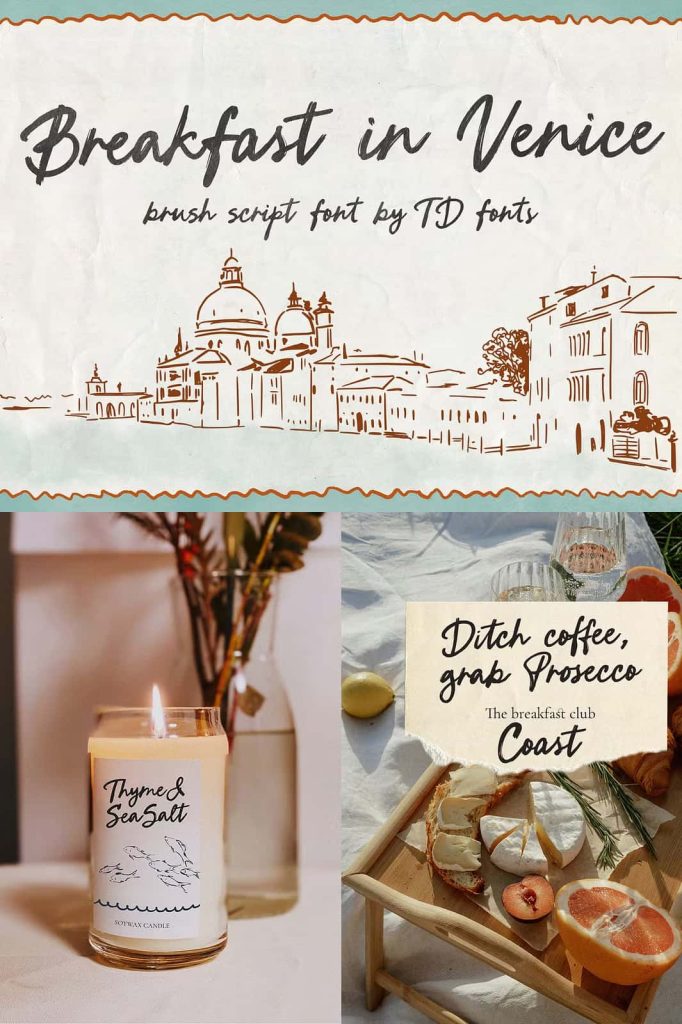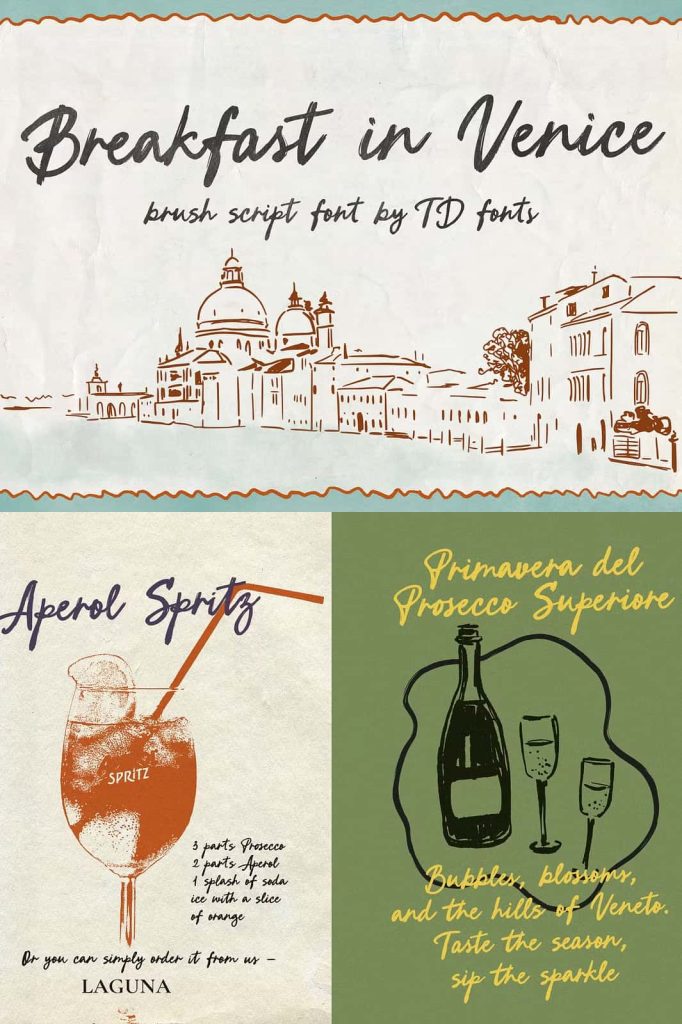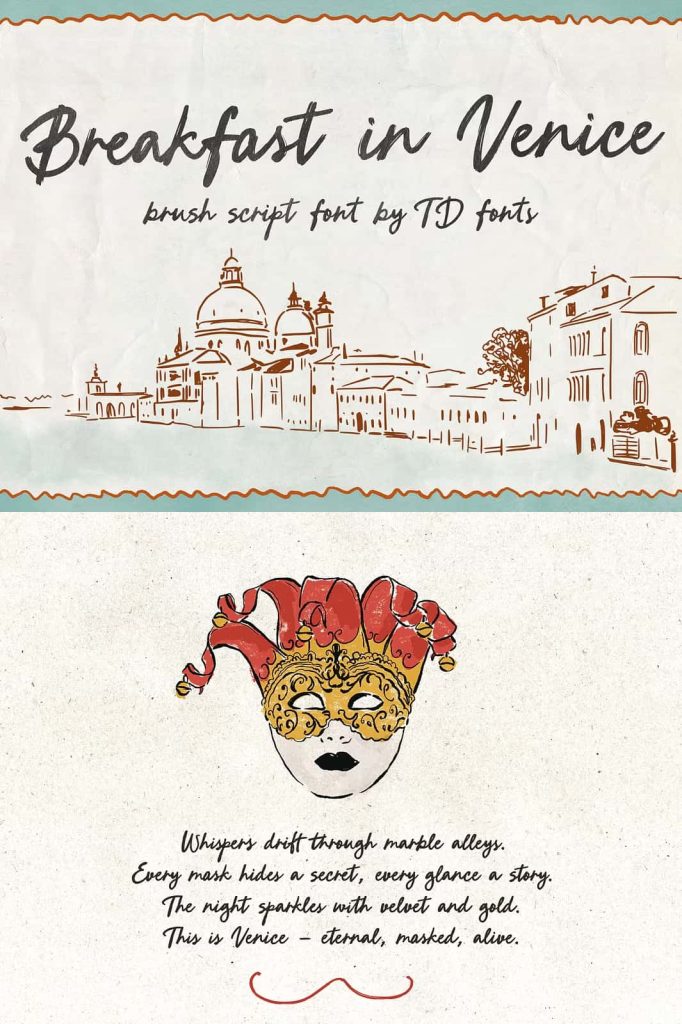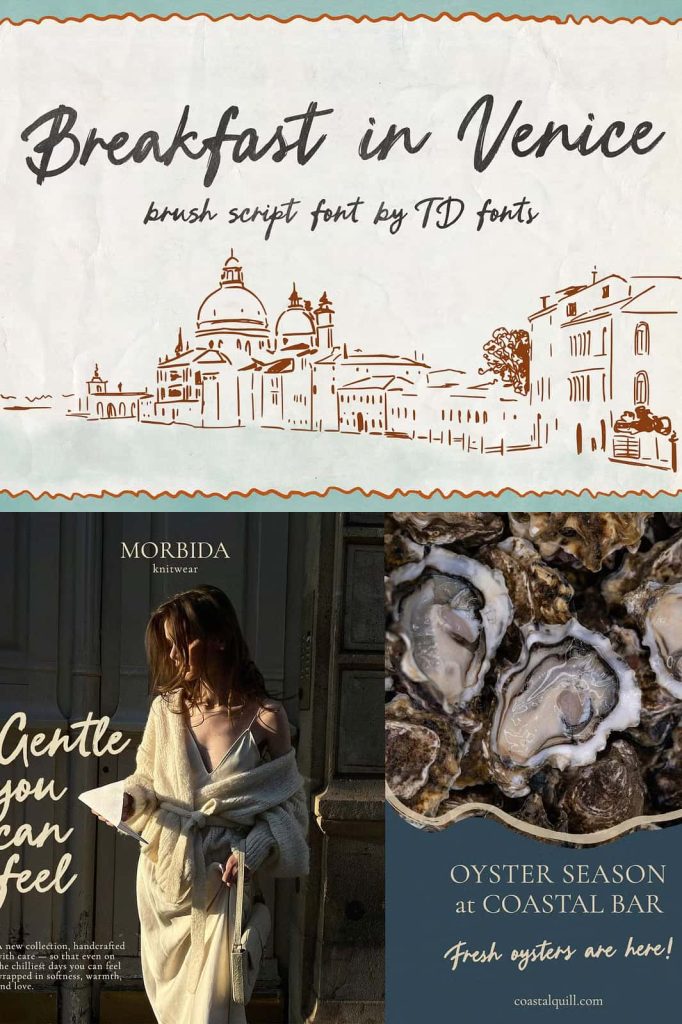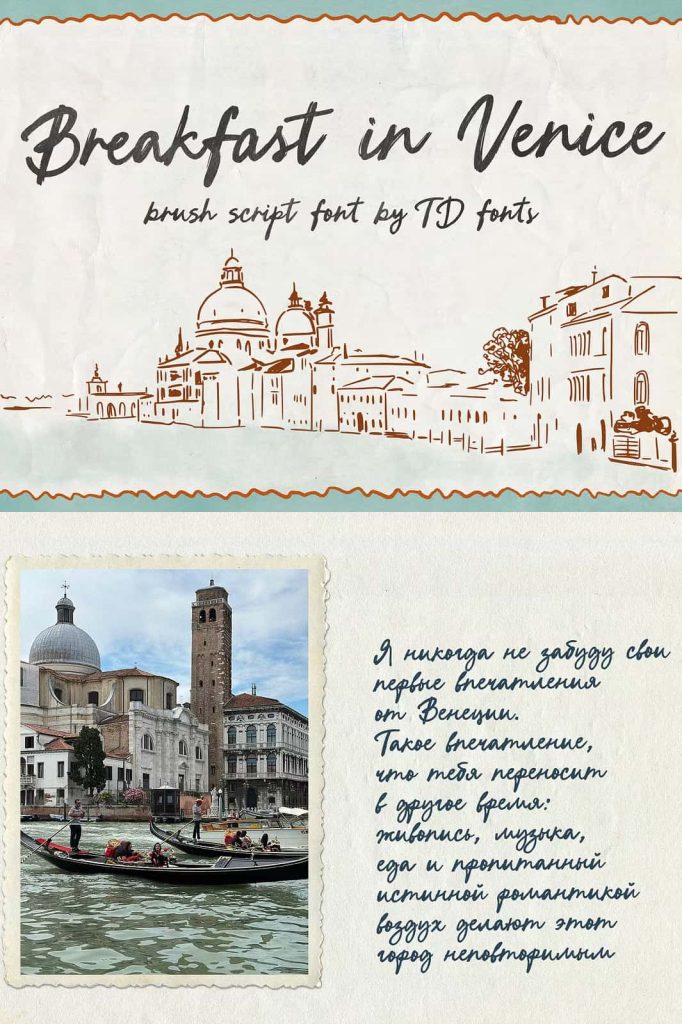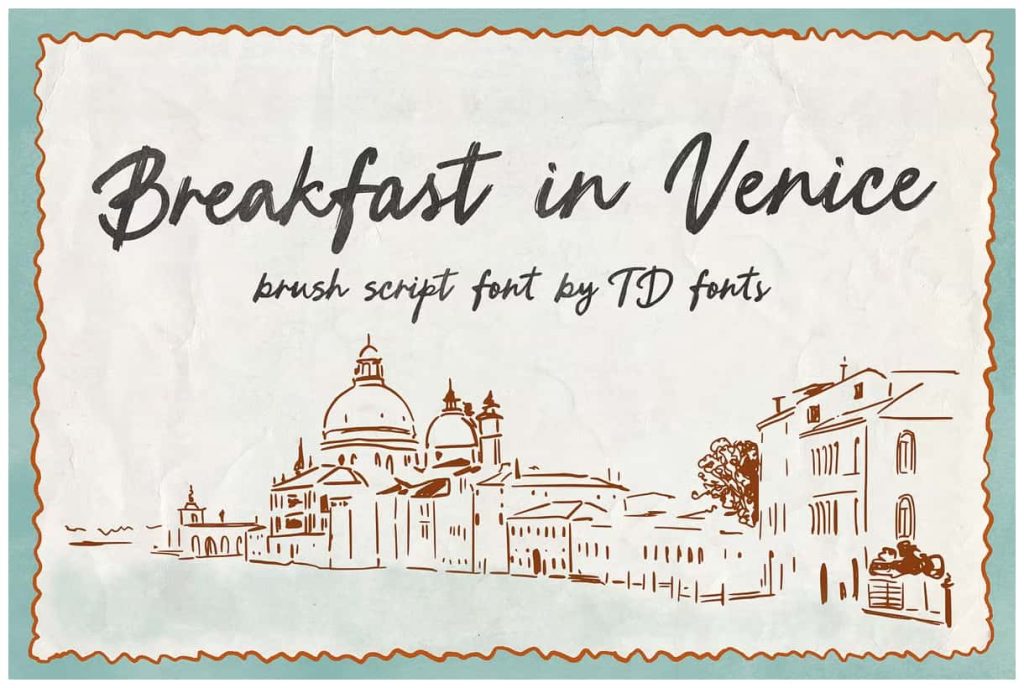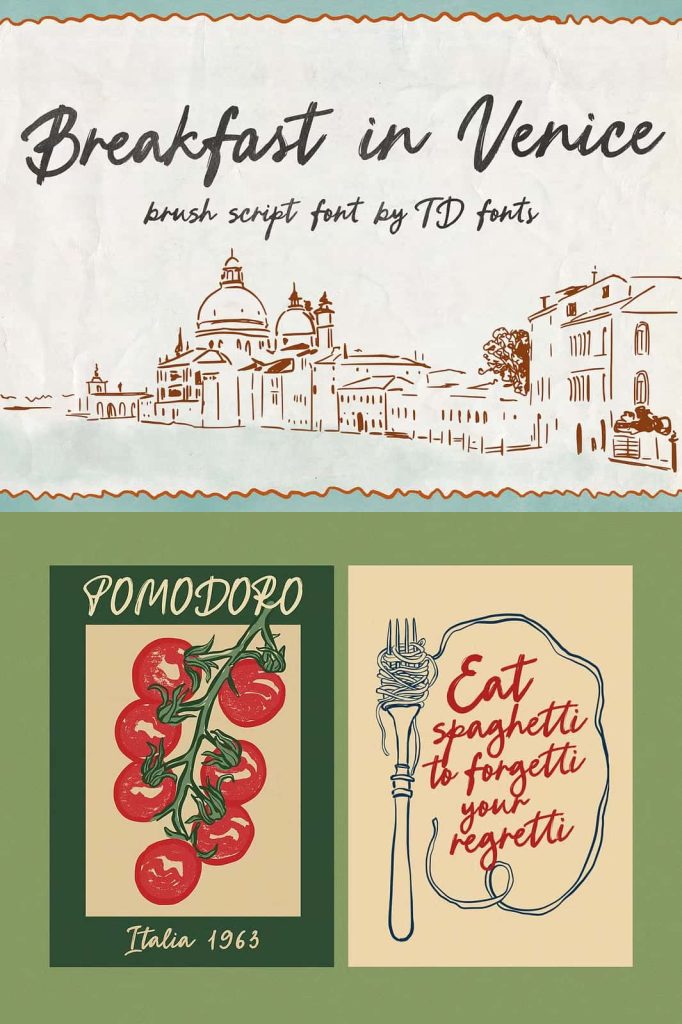
Breakfast in Venice is a bold, modern handwritten bold brush script font with multilingual support. Featuring a rich textured look and a wide set of alternates, it feels both organic and full of energy.